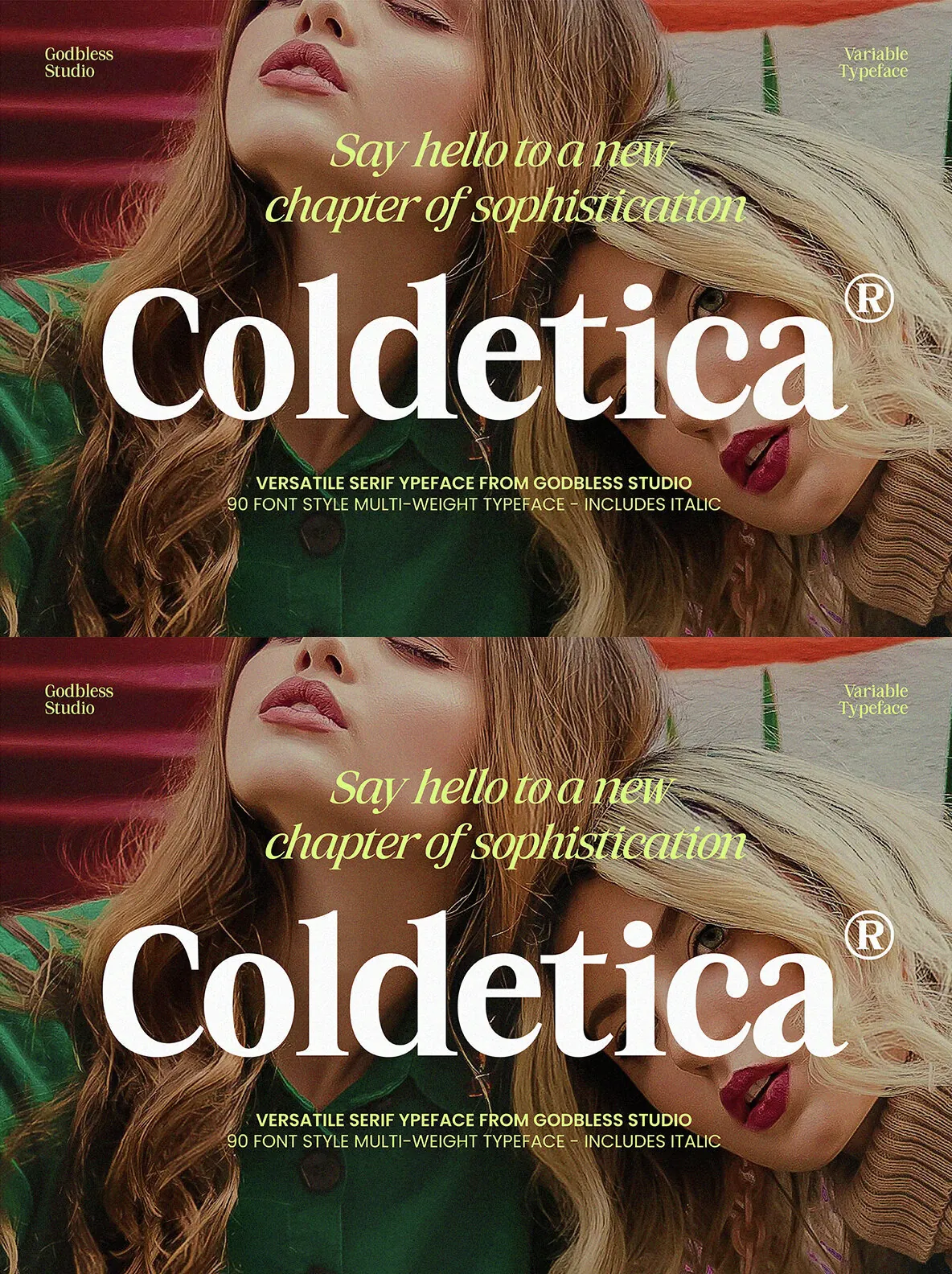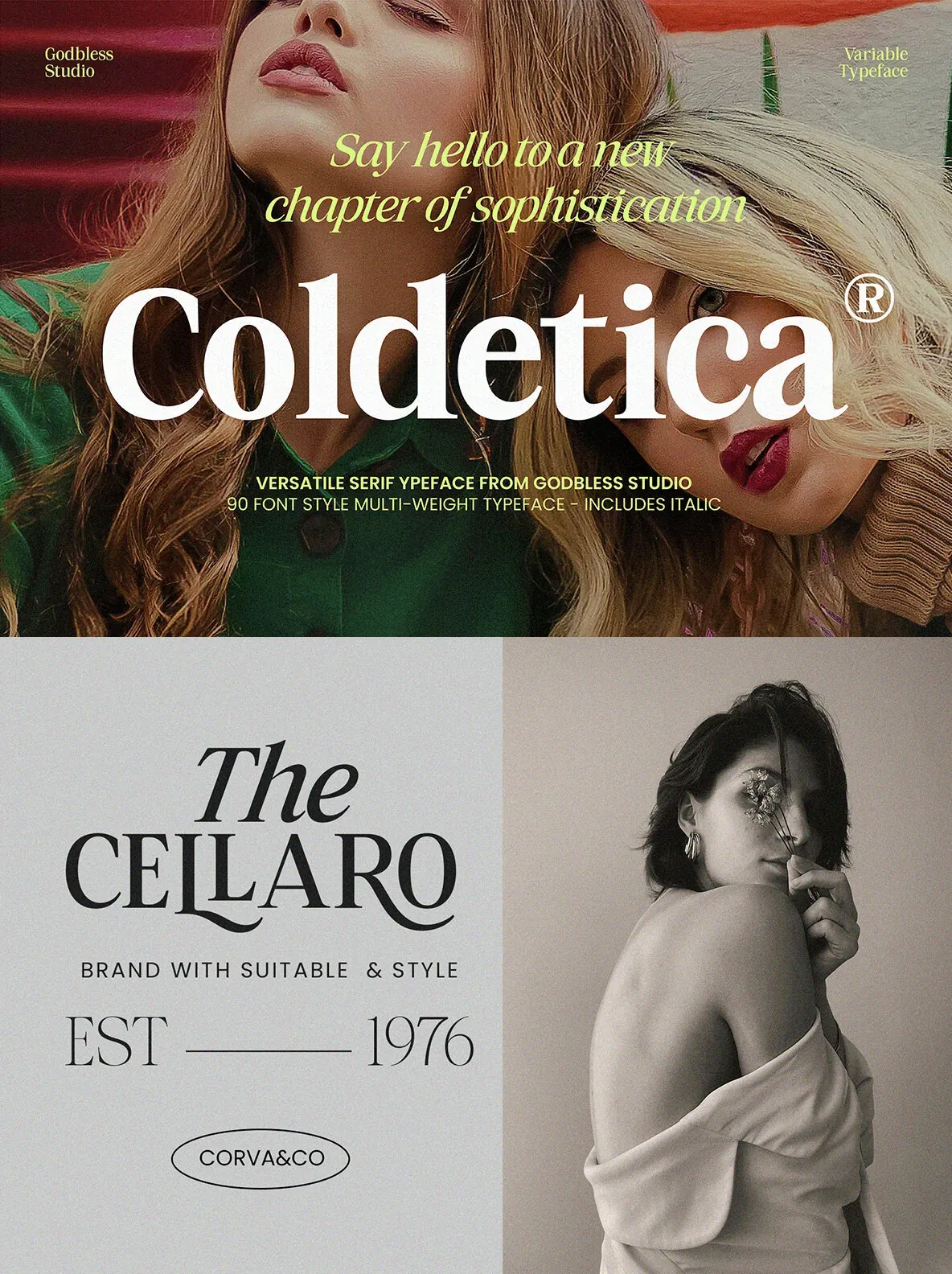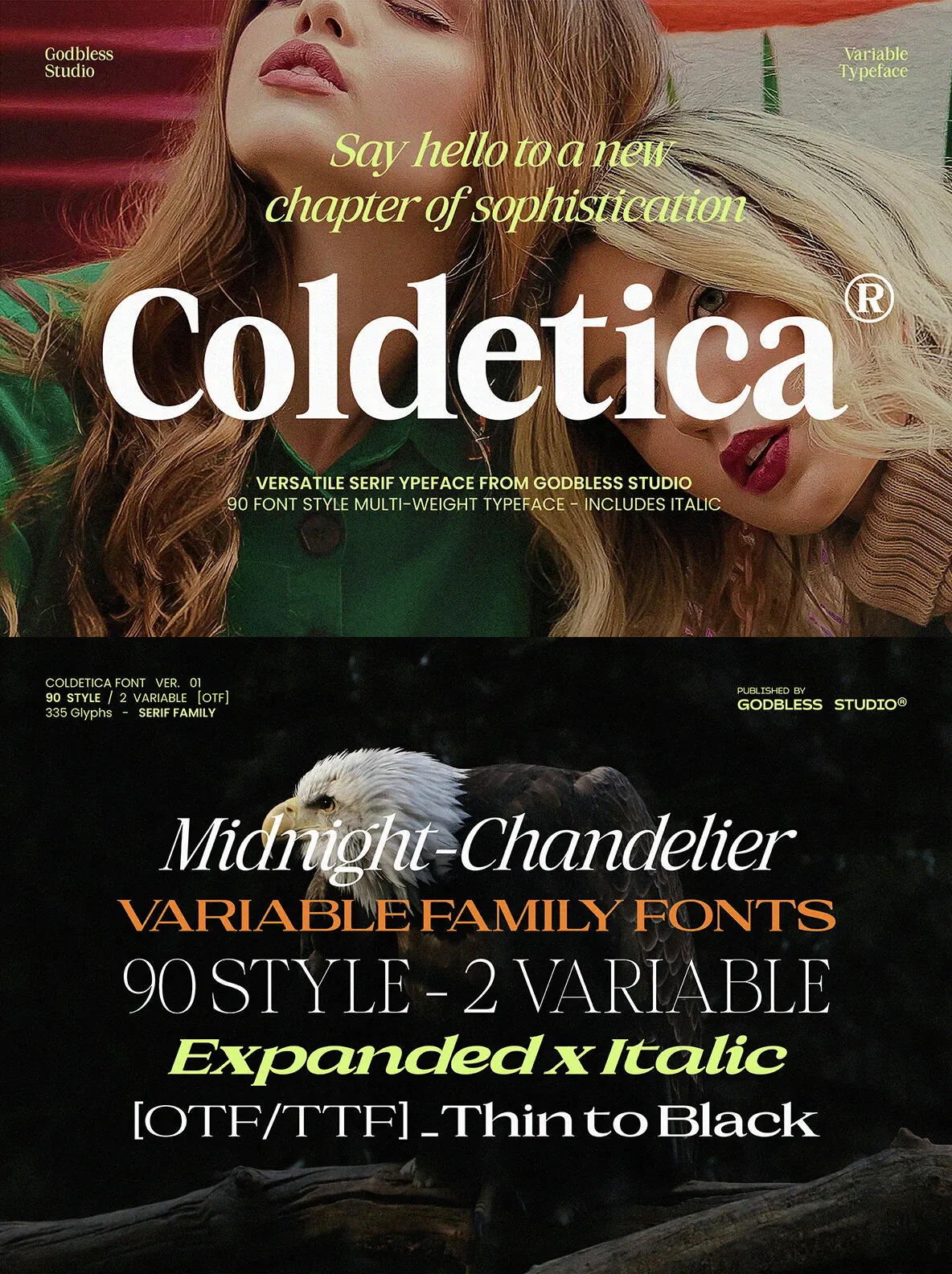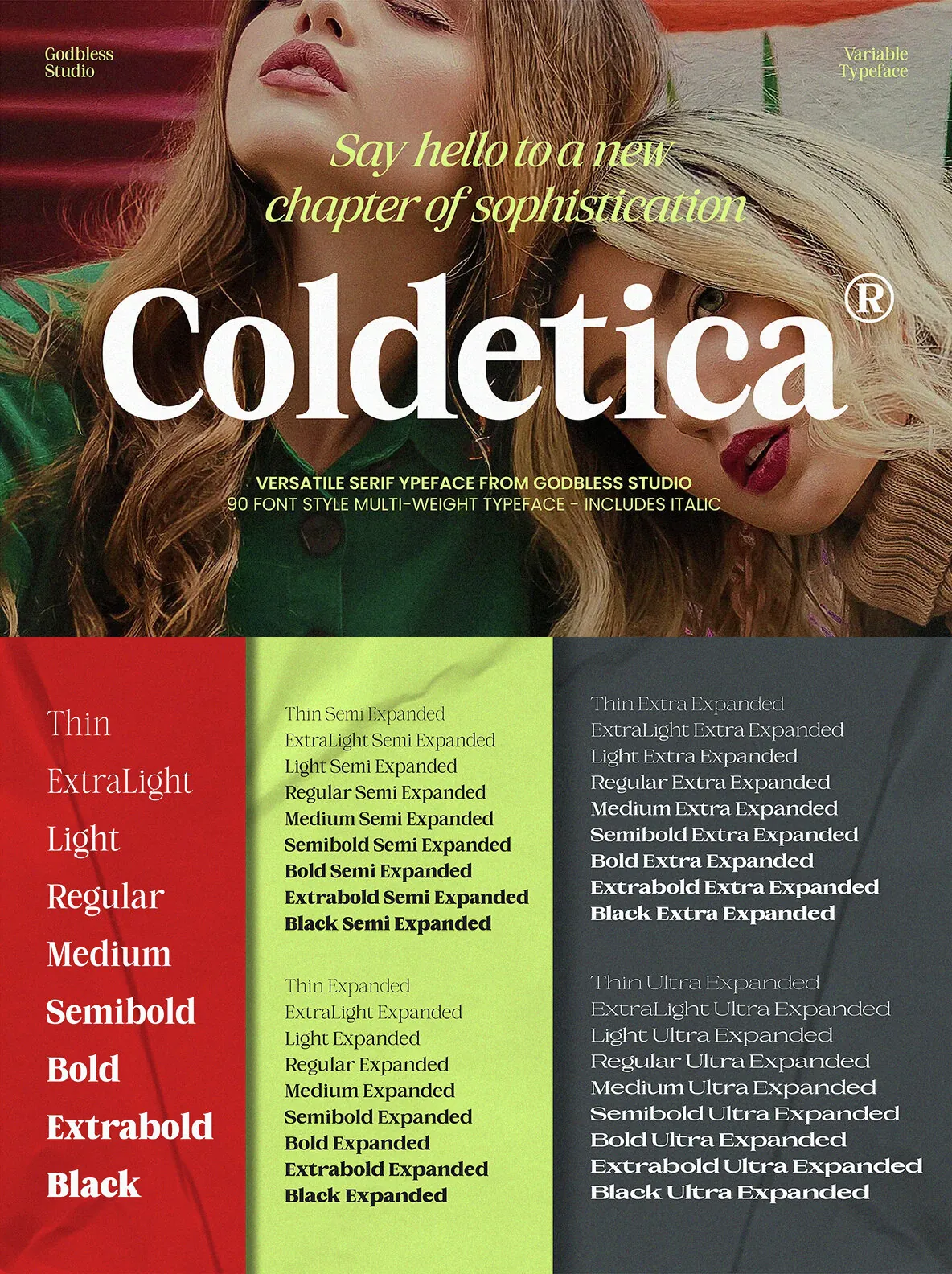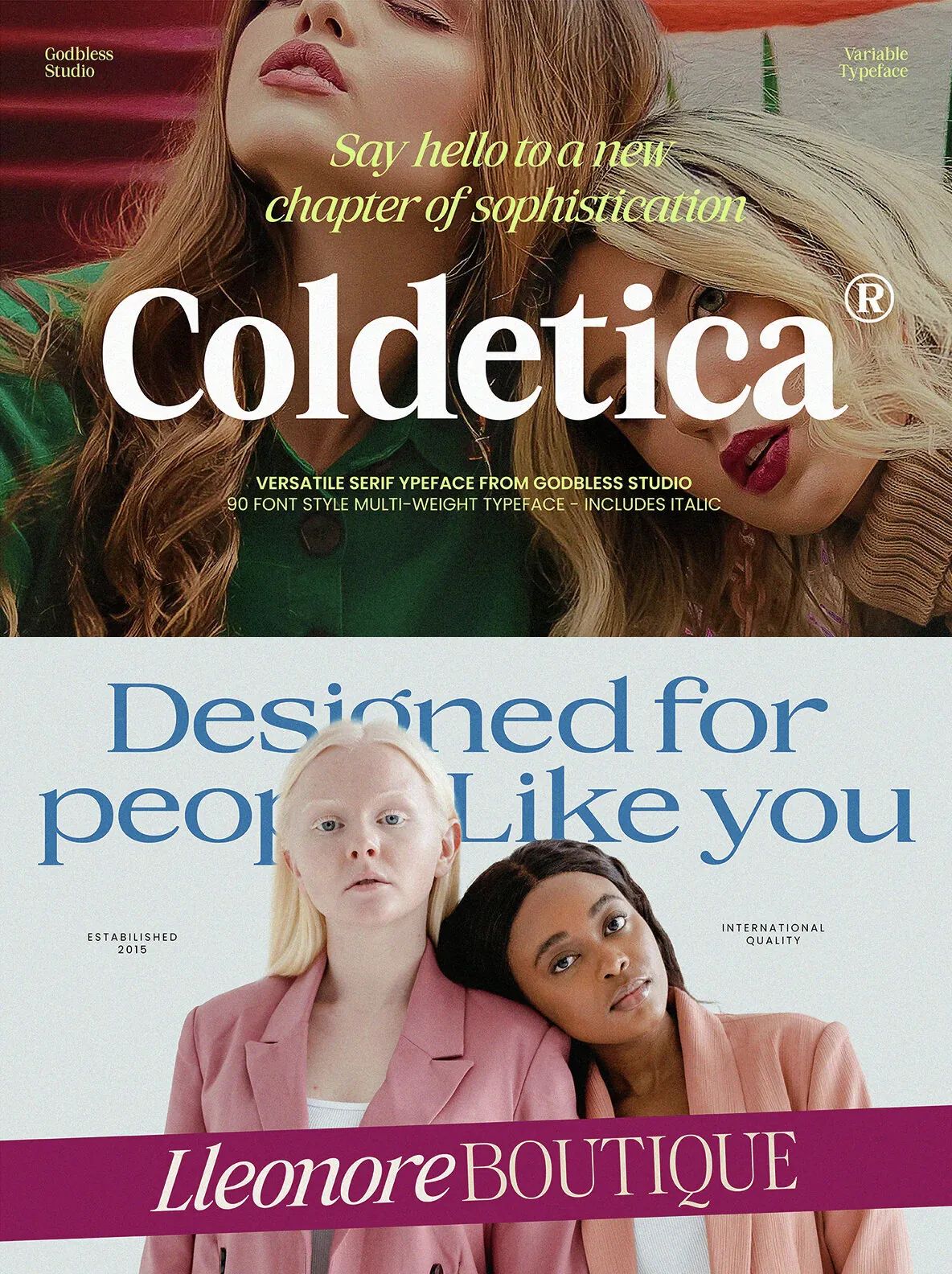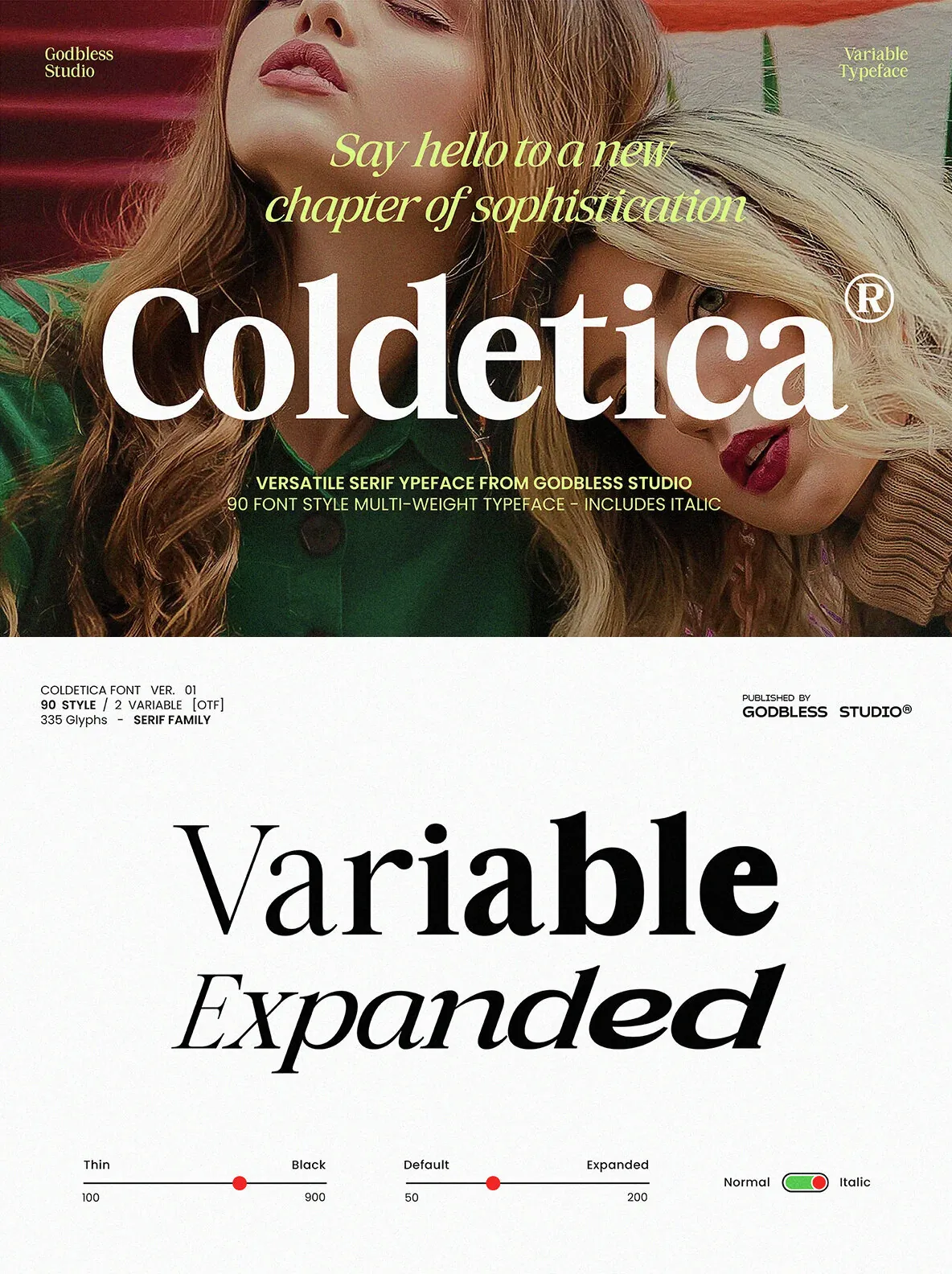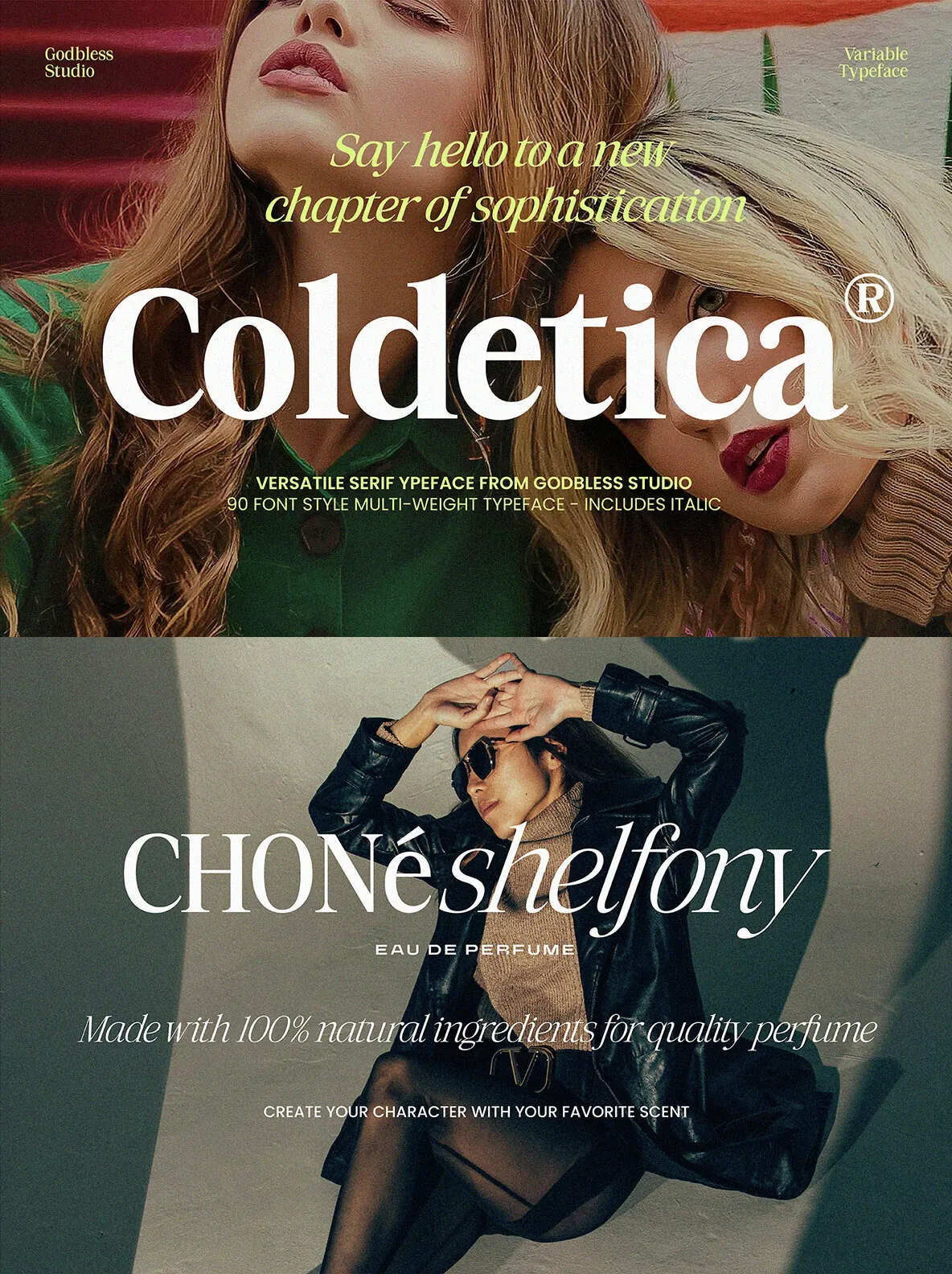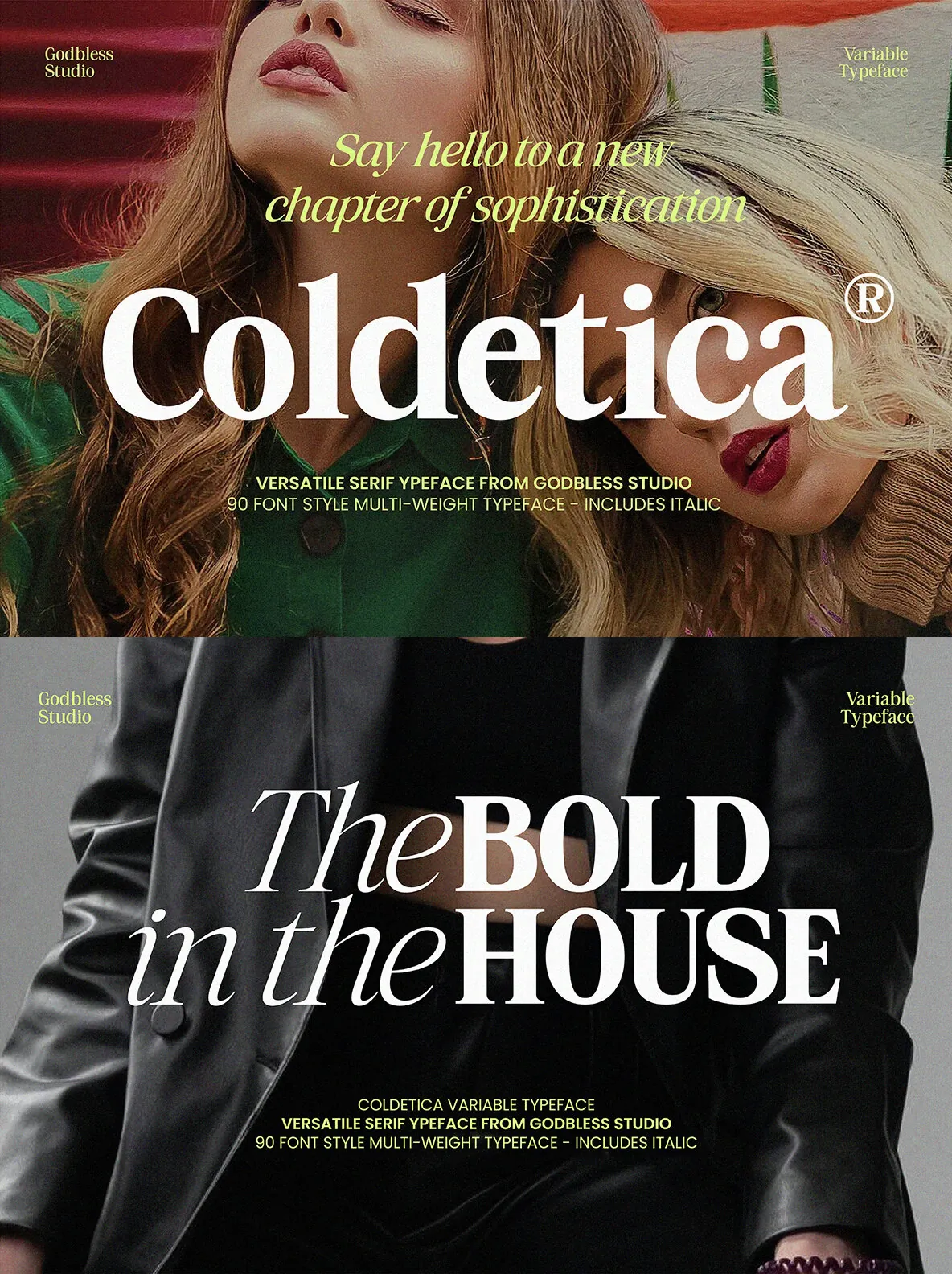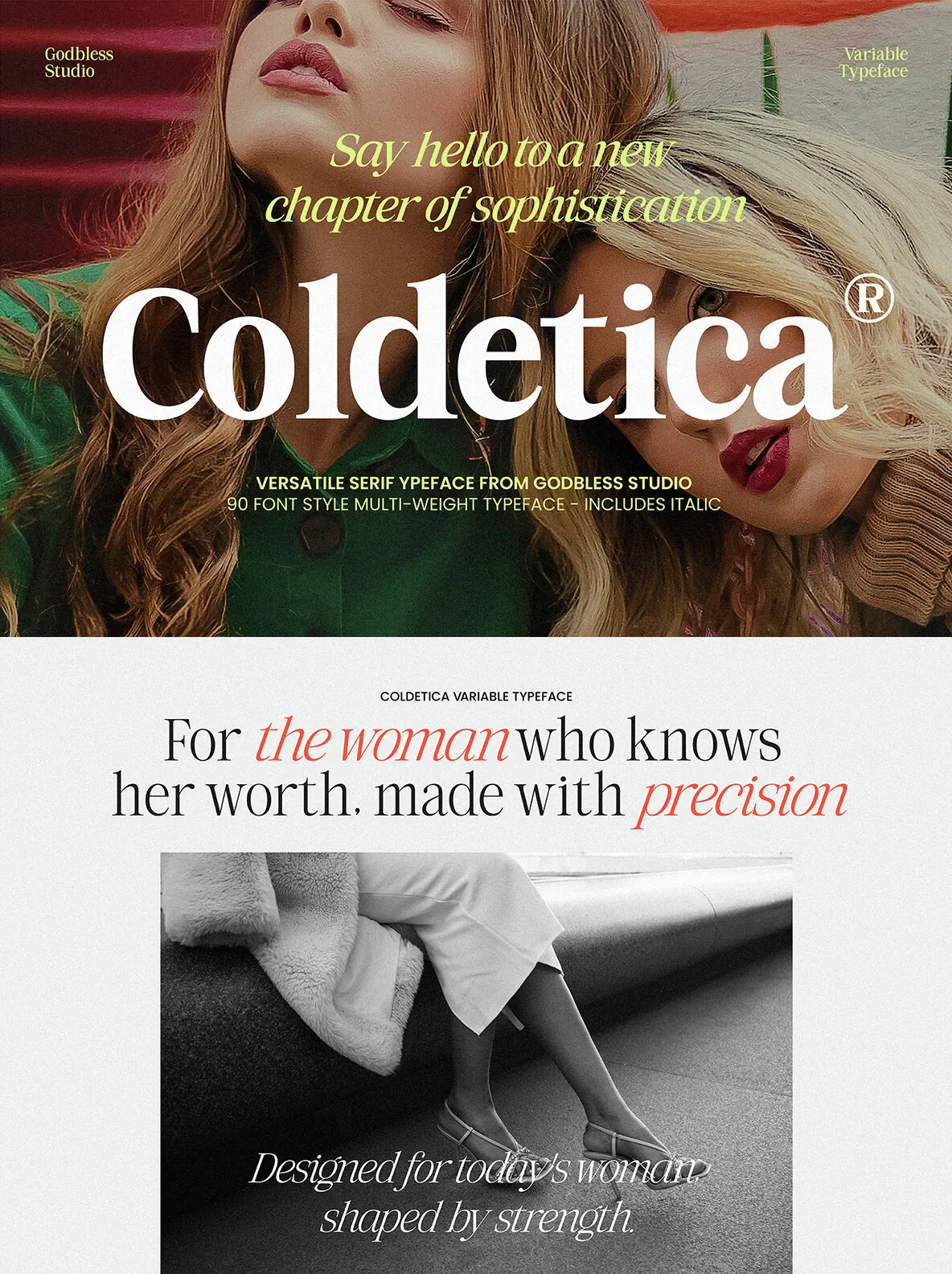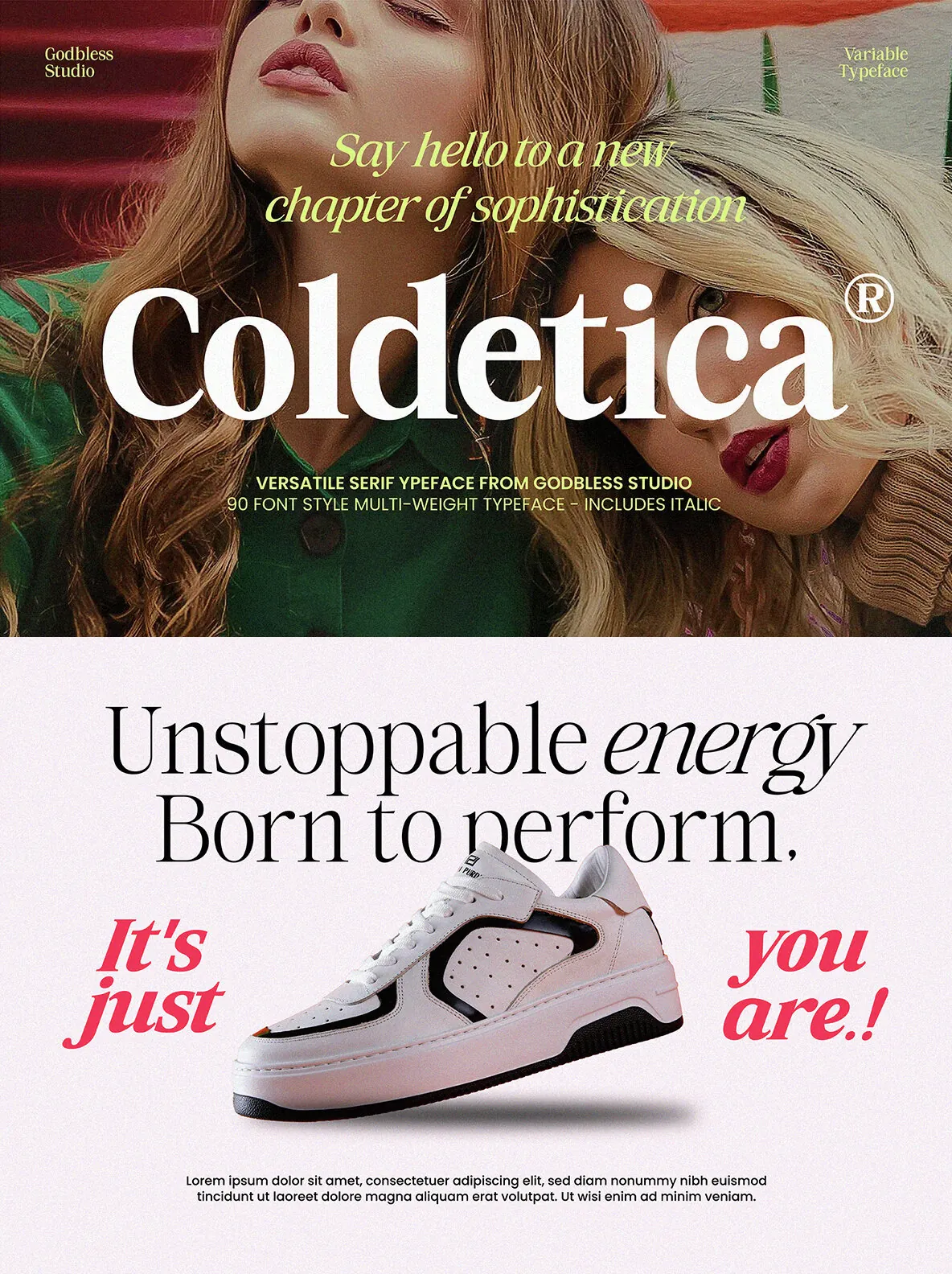
Coldetica Font
Variable Serif Family: Elegant with Bold Character
The Variable Serif Family embodies a balance between classic elegance and contemporary presence. Designed for designers seeking versatility, it offers 45 upright and 45 italic styles alongside two variable files that allow refined control over typographic nuances.
The typeface features refined proportions and an expanded style variant, providing room to explore broader layouts and make compelling visual statements. Its wide stylistic range supports diverse design needs.
Equipped with stylistic alternates, discretionary ligatures, and advanced OpenType capabilities, this family seamlessly adapts to a variety of projects—from luxury branding and editorial headlines to expressive, modern visuals.
Combining flexibility with sophistication, the Variable Serif Family introduces both poise and strength to any typographic composition.